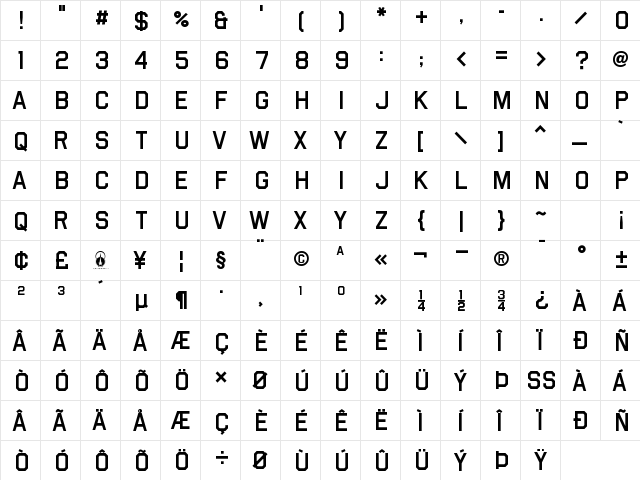
Airborne II Regular
| Designer | Charles Casimiro 2008 |
Design Context for Airborne II Typeface
Airborne II is a composed and adaptable typeface that performs quietly and consistently across a wide range of design contexts.